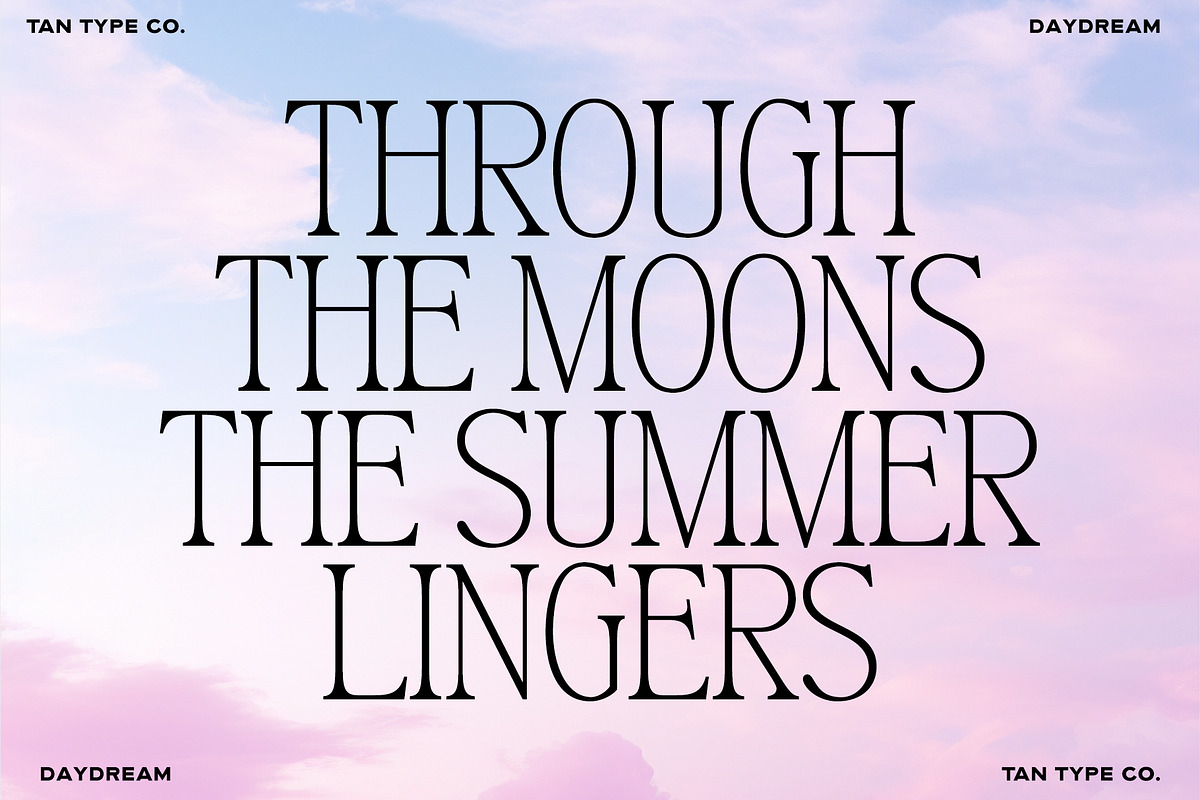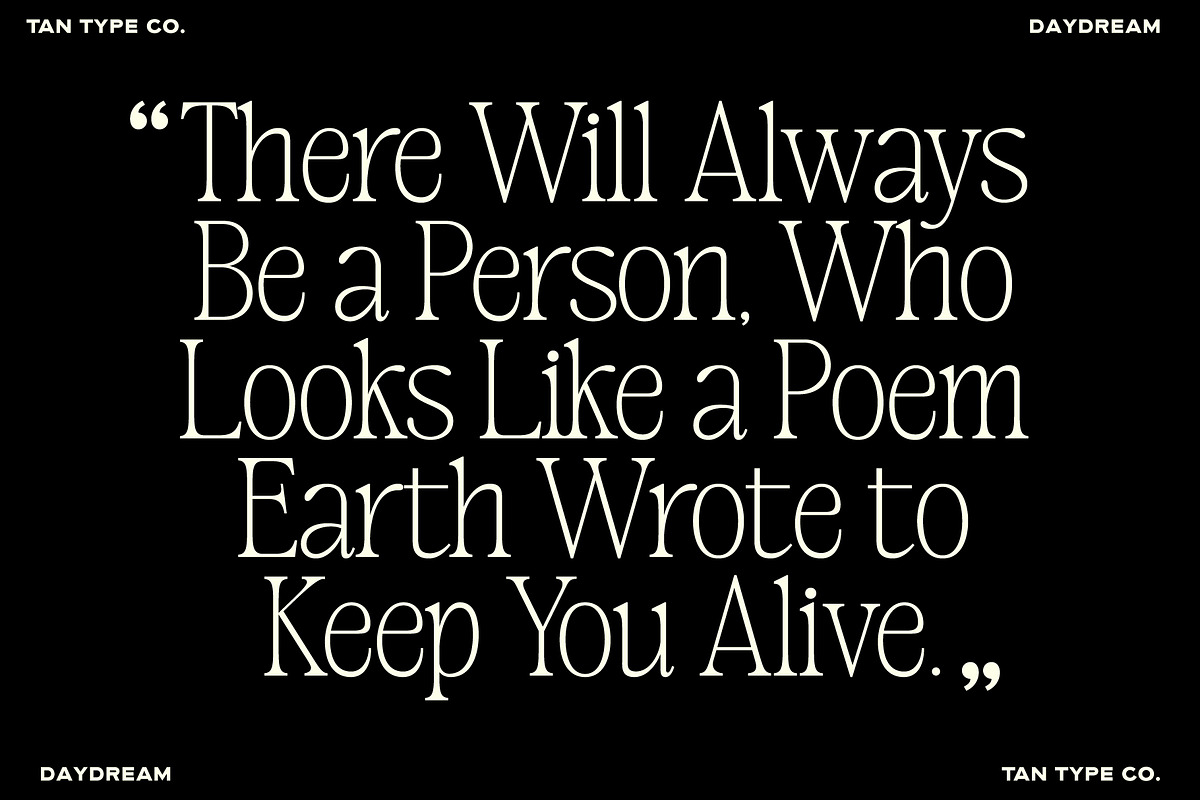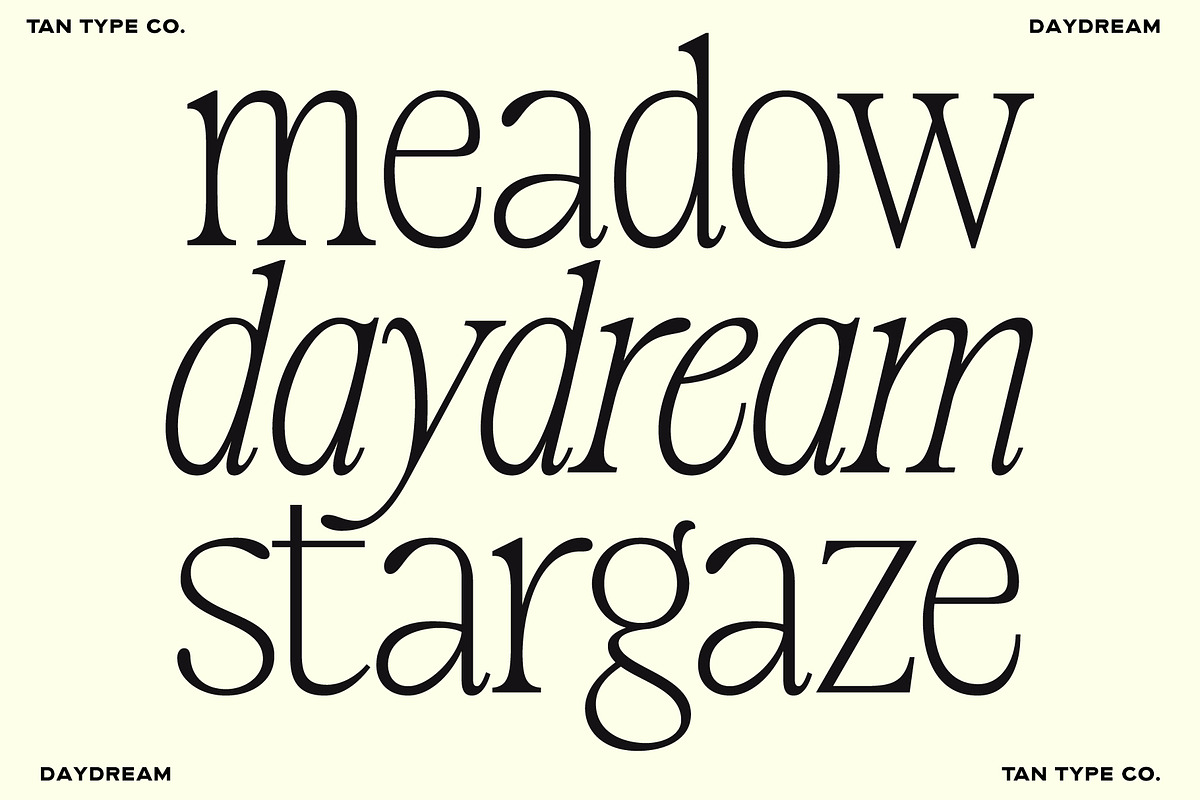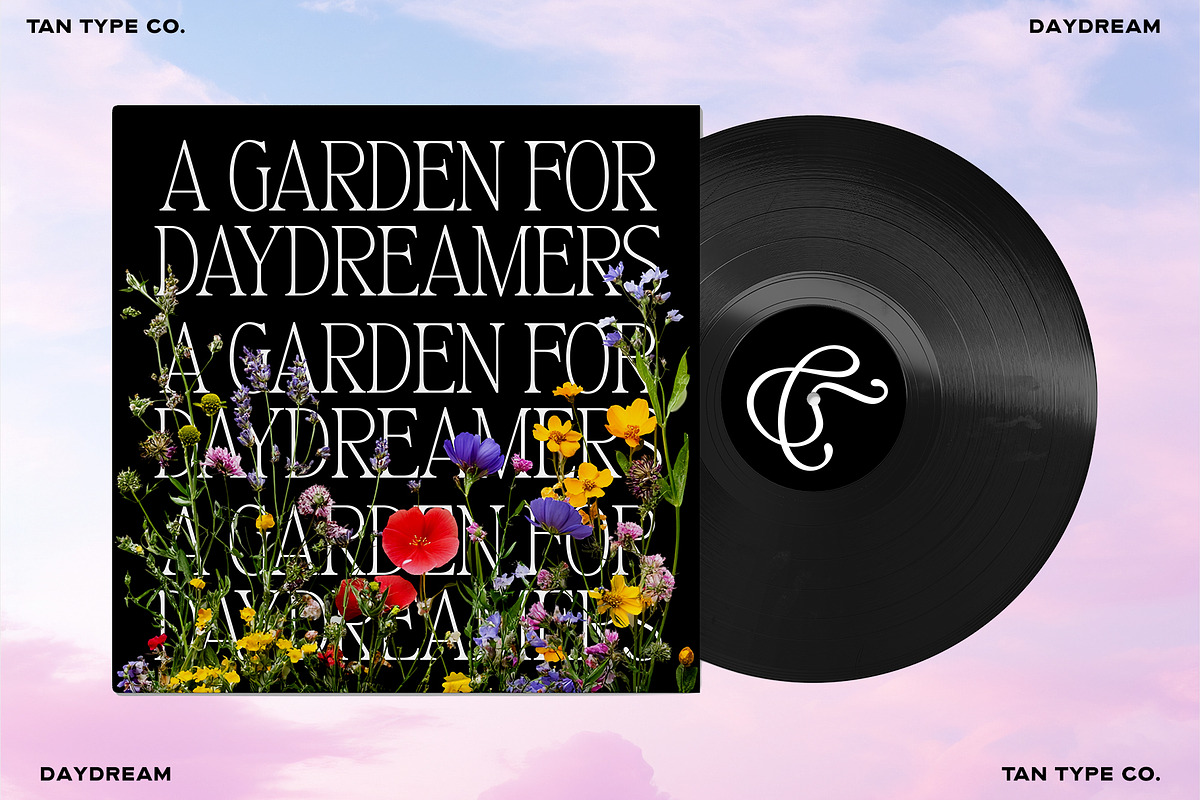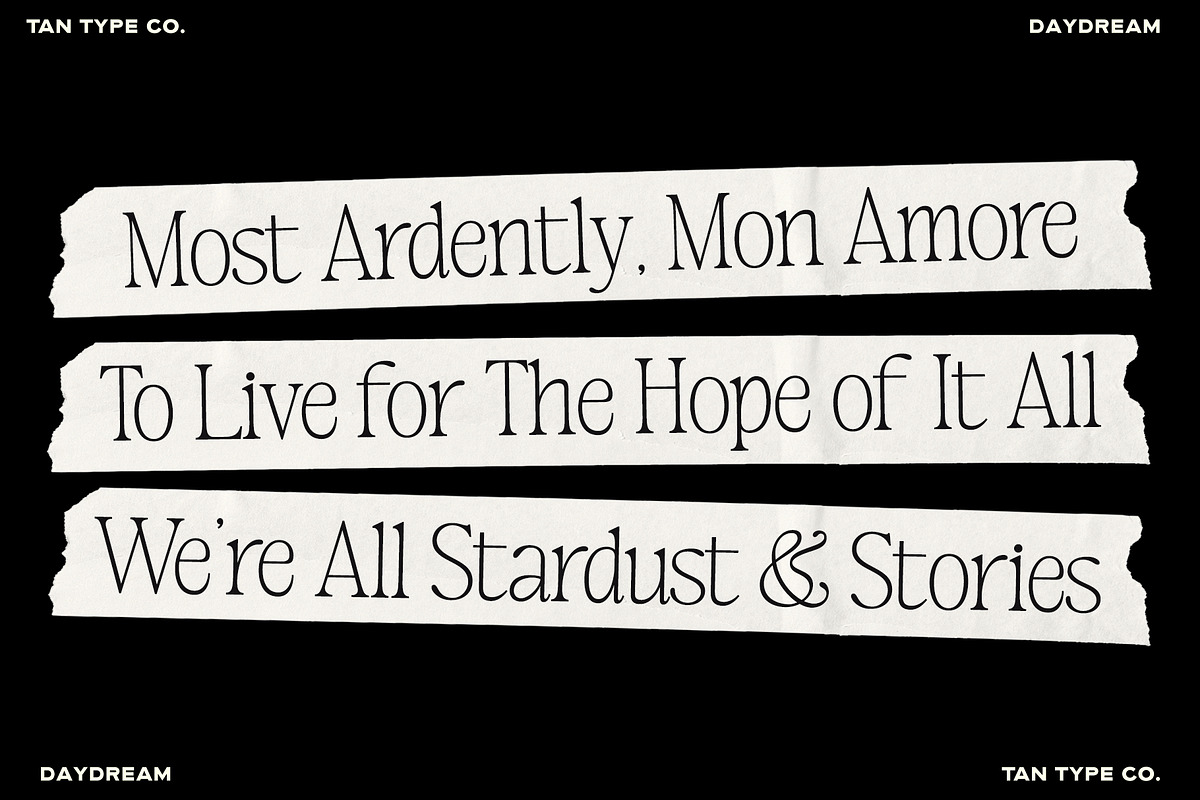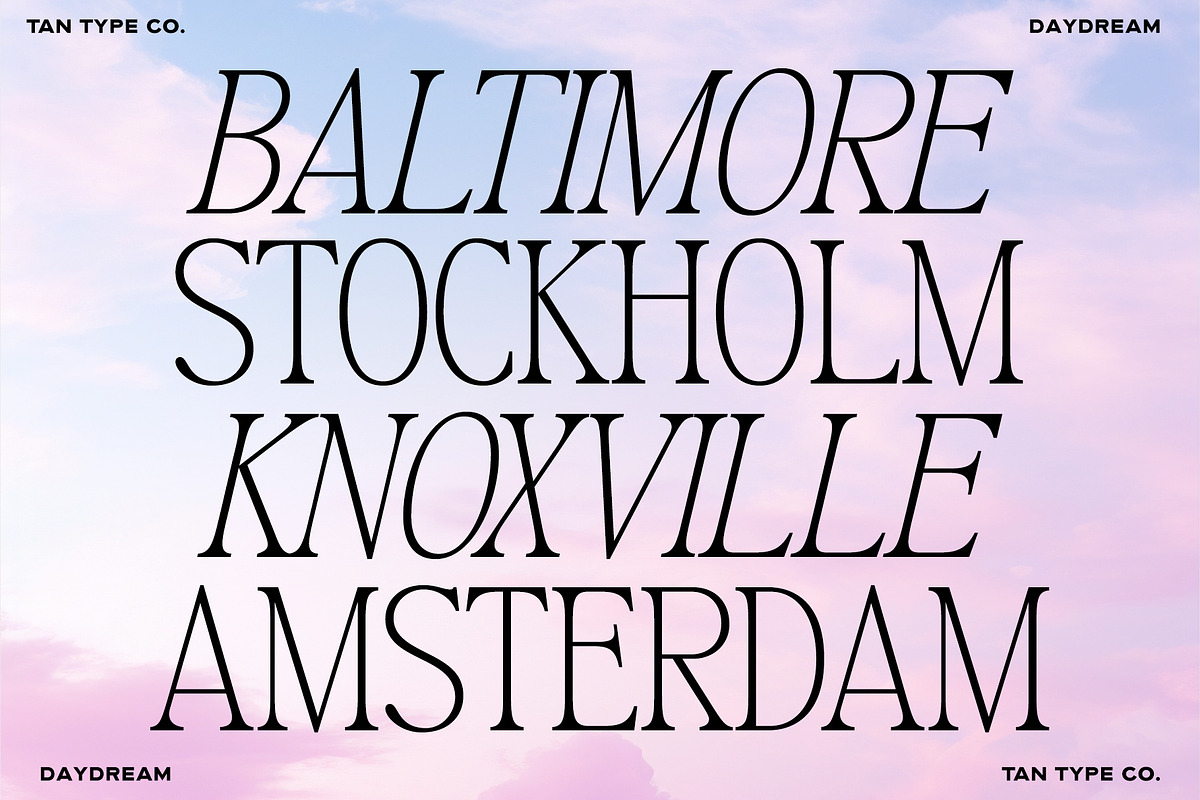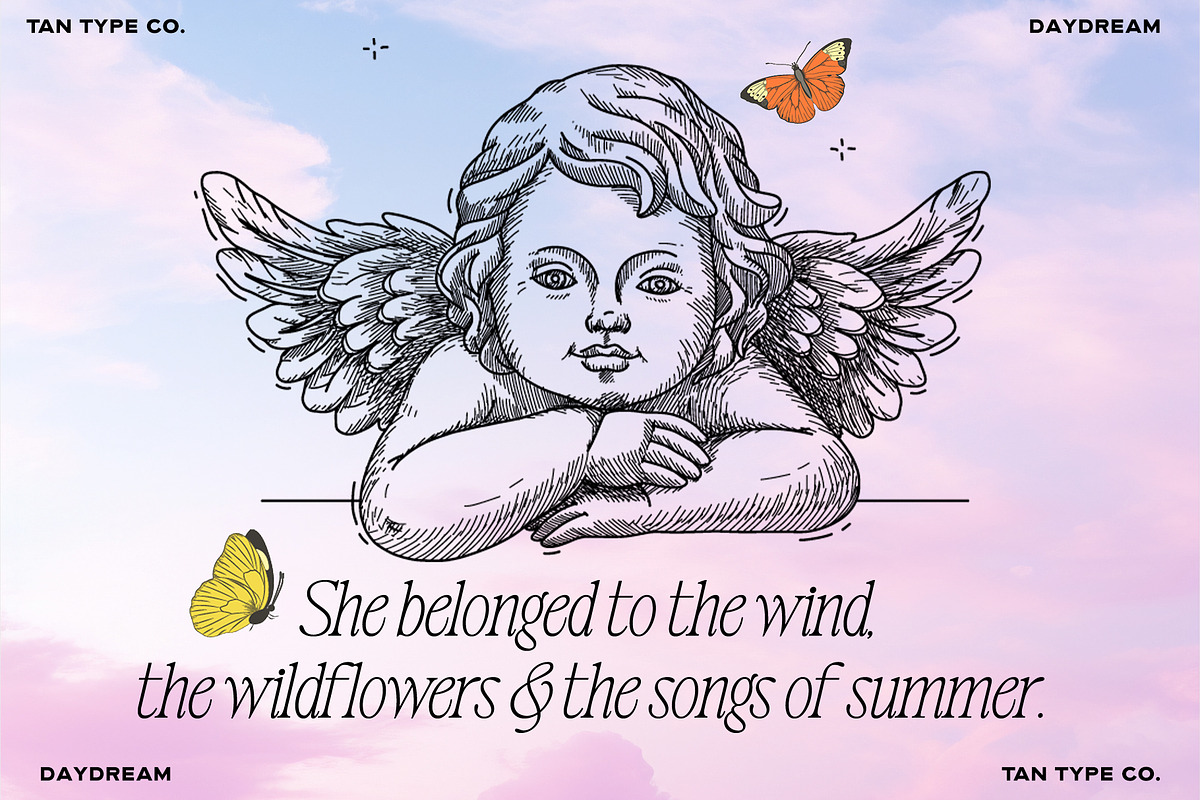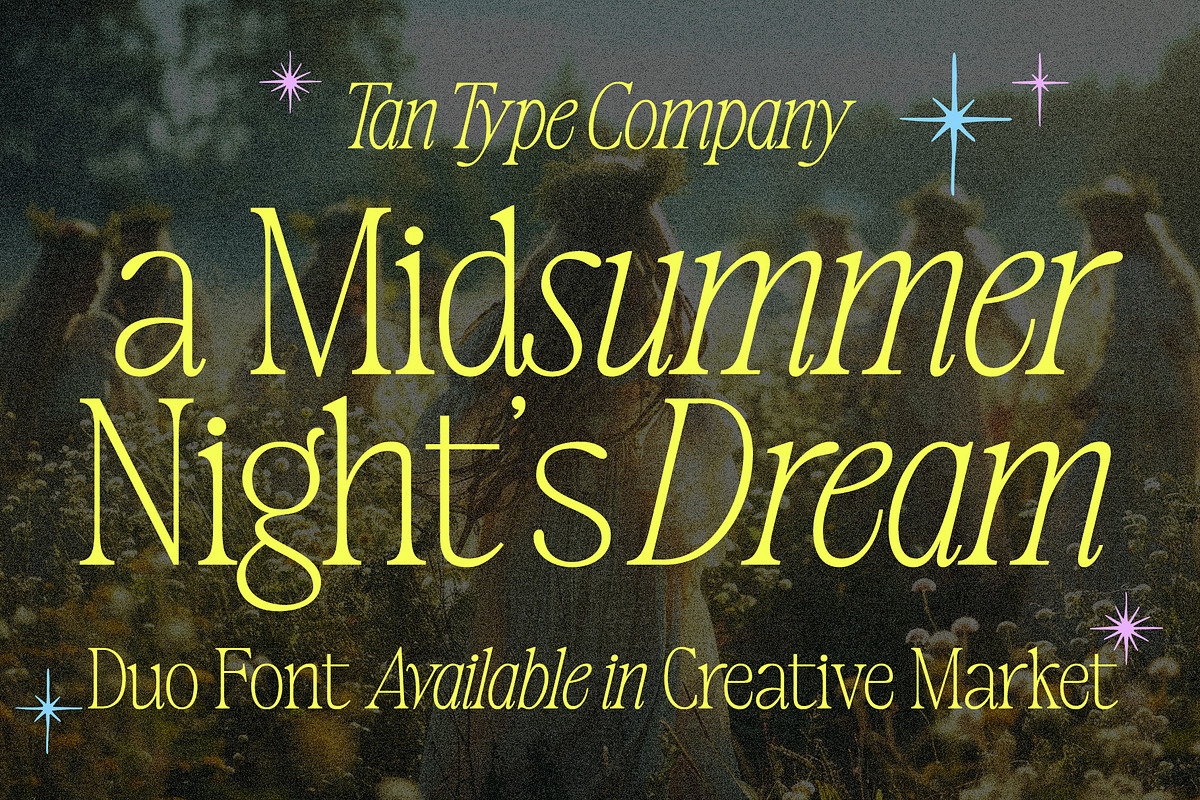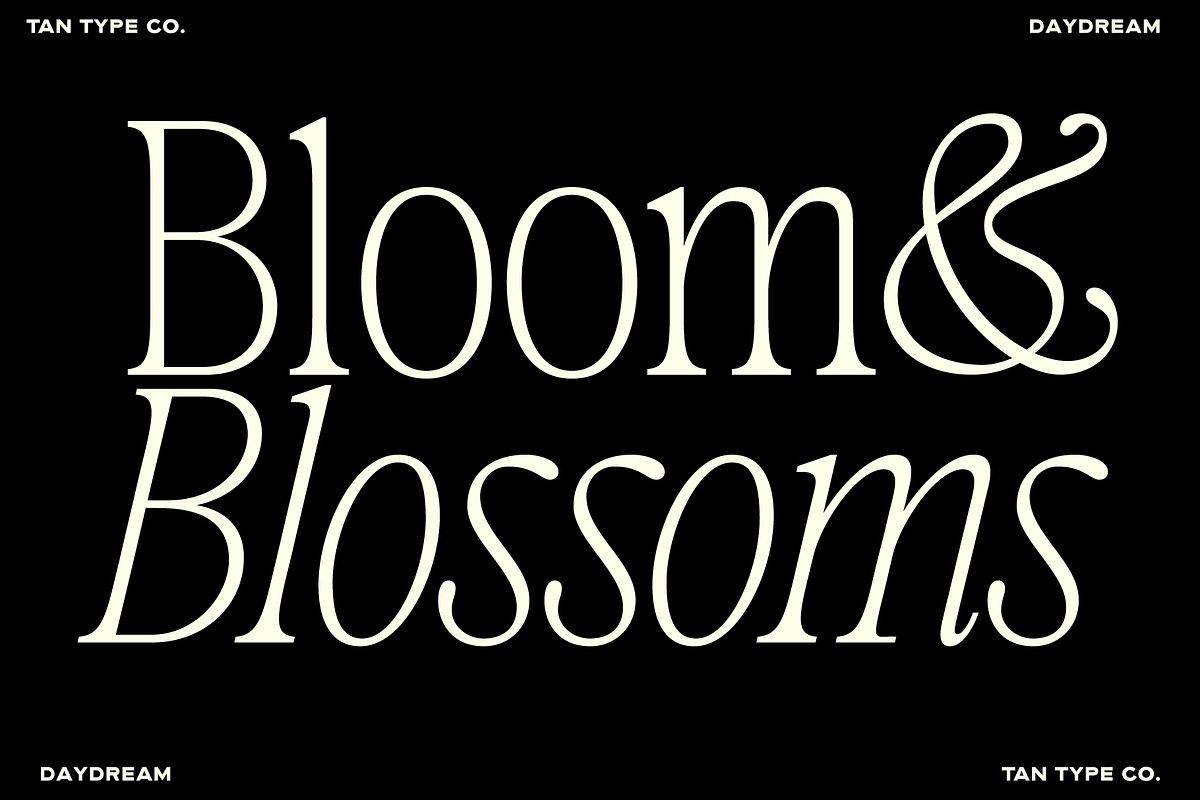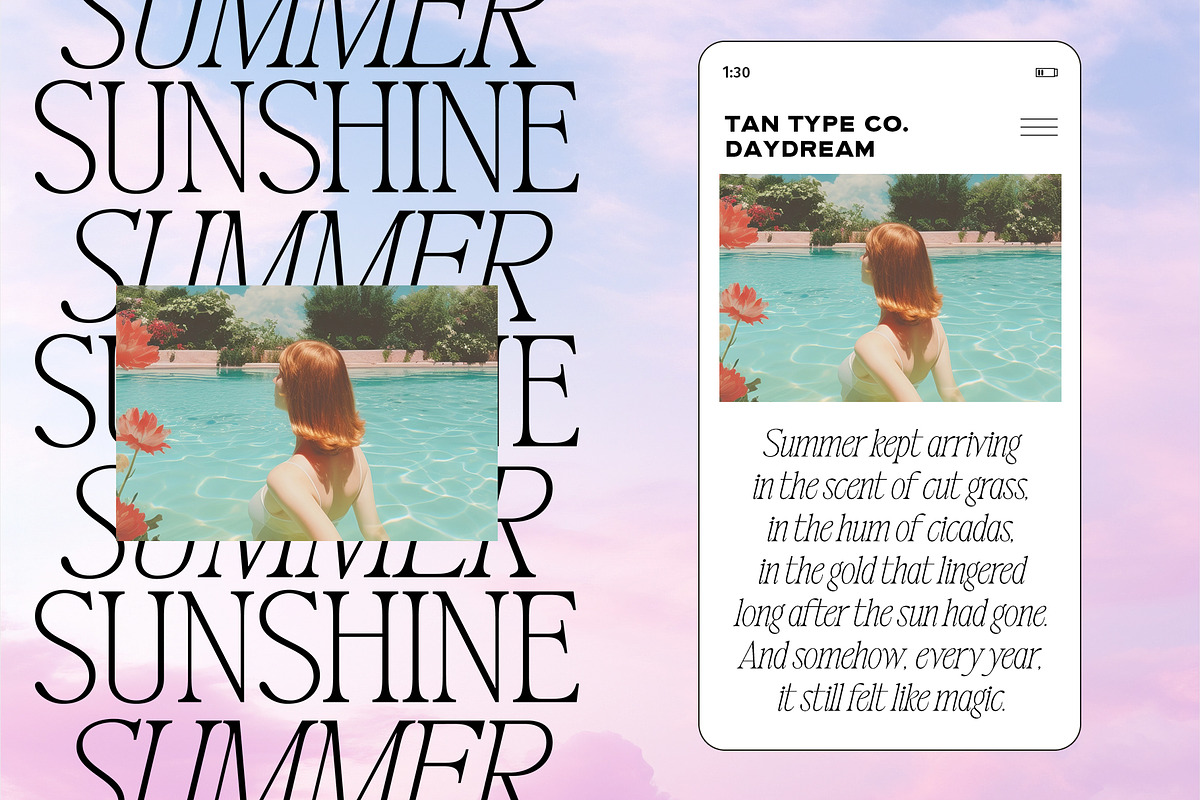
TAN-MIDSUMMER- DUO FONT
TAN-Midsummer is a serif duo born from the romance of golden evenings and fields of wildflowers swaying beneath the fading sun.
With elegant proportions, delicate contrast, and a beautifully flowing italic, Midsummer evokes a sense of nostalgia, wonder, and quiet luxury. It feels like a handwritten letter tucked inside a beloved book, a summer memory preserved in time, or a story waiting to be told.
Designed for brands and creatives who appreciate beauty in the details, Midsummer shines across editorial layouts, wedding suites, book covers, packaging, and refined visual identities.
Romantic, timeless, and endlessly versatile, Midsummer transforms ordinary words into something unforgettable.